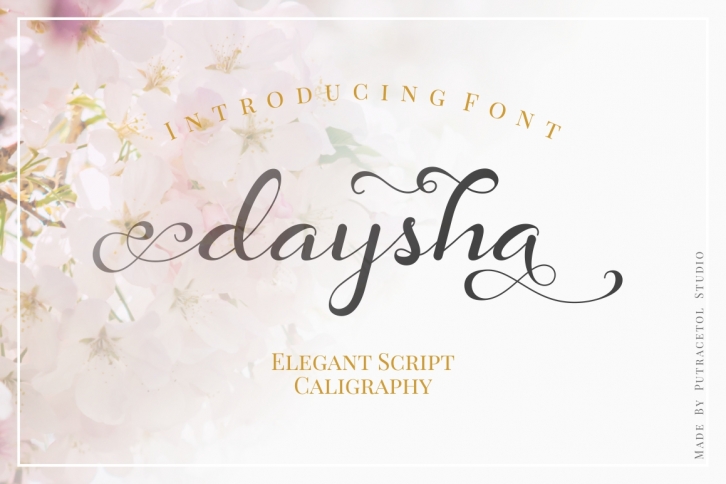
Daysha is a gorgeous font that was realeased on July 8, 2019. The font can be used in many style contexts and design environments. Perfect for invitations, magazines, websites, logos, and more! It was designed by PutraCetol Studio and the file size is 9.54 MB. Thanks for checking out this font!